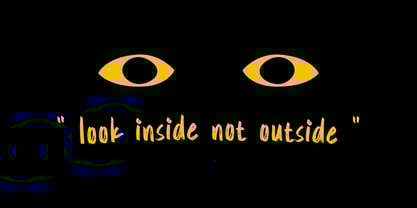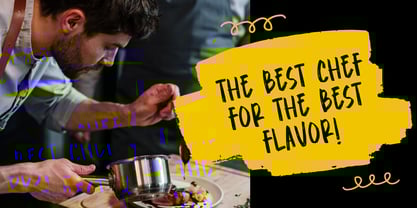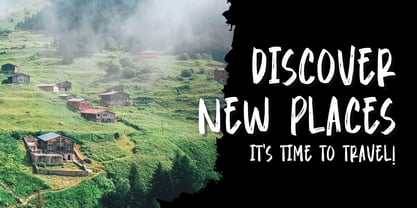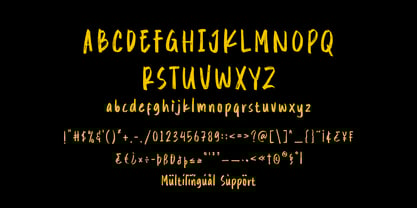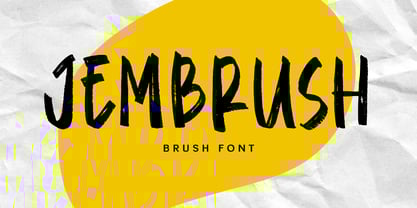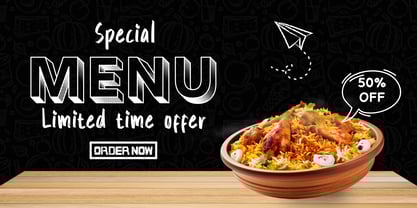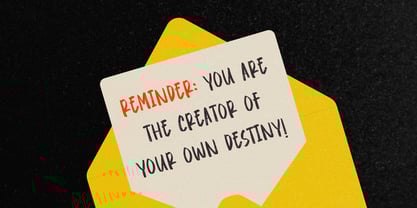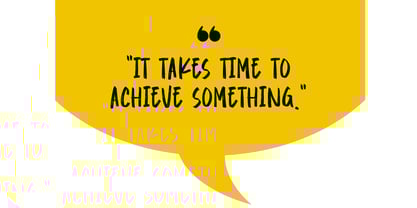
Jembrush
von Sronstudio
Die Schriftfamilie Jembrush wurde von Muhamad Yusron Billah entworfen und von Sronstudio veröffentlicht. Jembrush enthält 1 Stile.
Jembrush is a bold and expressive handbrush font that brings raw energy and artistic flair to your designs. With its textured strokes and natural brush feel, Jembrush is perfect for posters, music covers, branding, apparel, or anything that needs a striking and handmade touch. Each letter is crafted to convey movement and personality, giving your text a truly authentic and dynamic appearance.
What’s Included:
- Regular & Italic Style
- Uppercase & lowercase characters
- Numerals & punctuation
- Multilingual support
Designer: Muhamad Yusron Billah
Herausgeber: Sronstudio
Foundry: Sronstudio
Eigentümer des Designs: Sronstudio